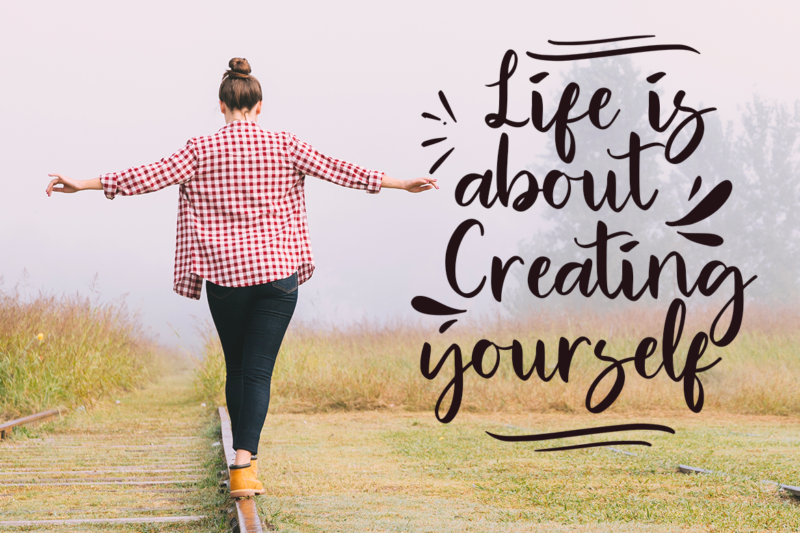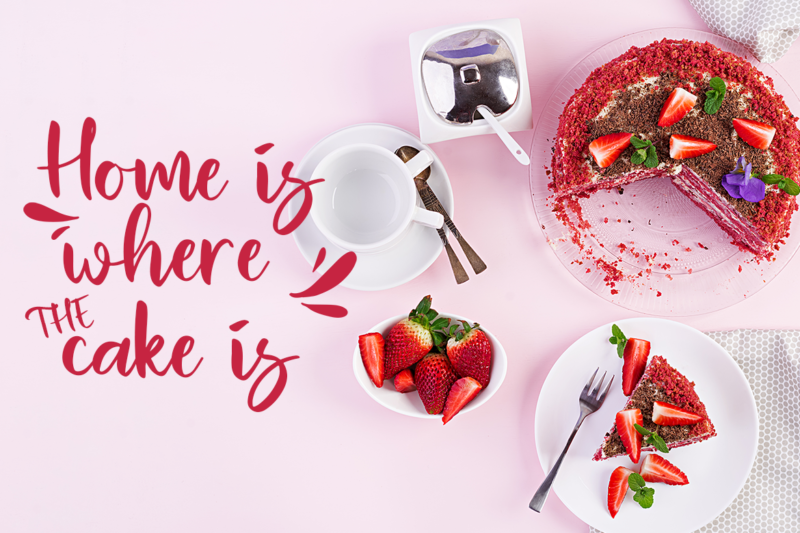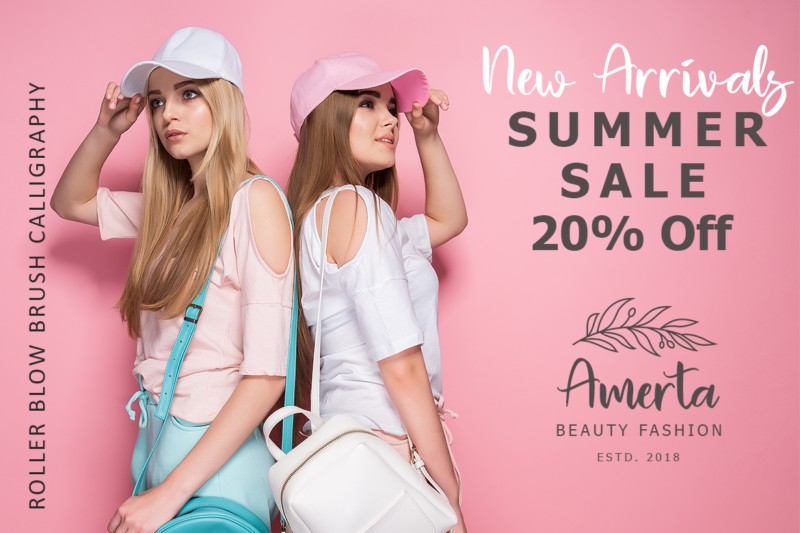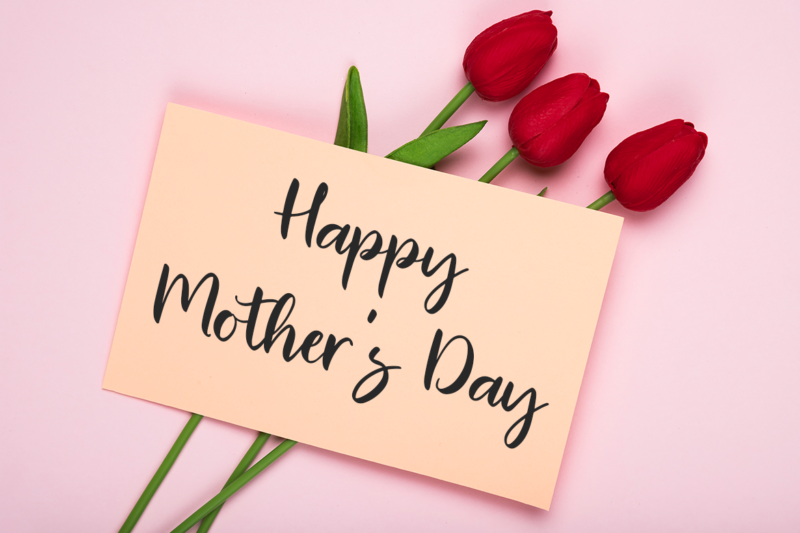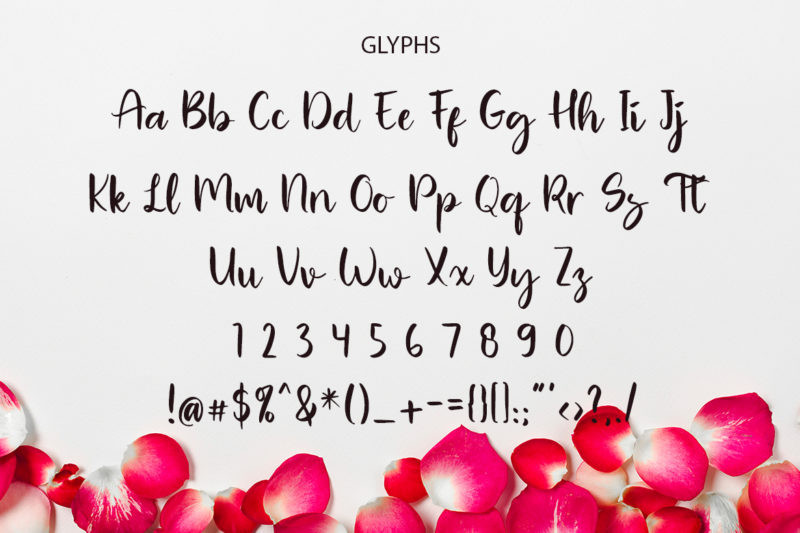
Roller Blow Brush Font
Roller Blow is a brush typeface can make your text appear elegant, luxurious, and modern!
Roller Blow is perfect for branding projects, logo, wedding designs, social media posts, advertisements, product packaging, tshirt design, product designs, label, photography, watermark, invitation, stationery and any projects.